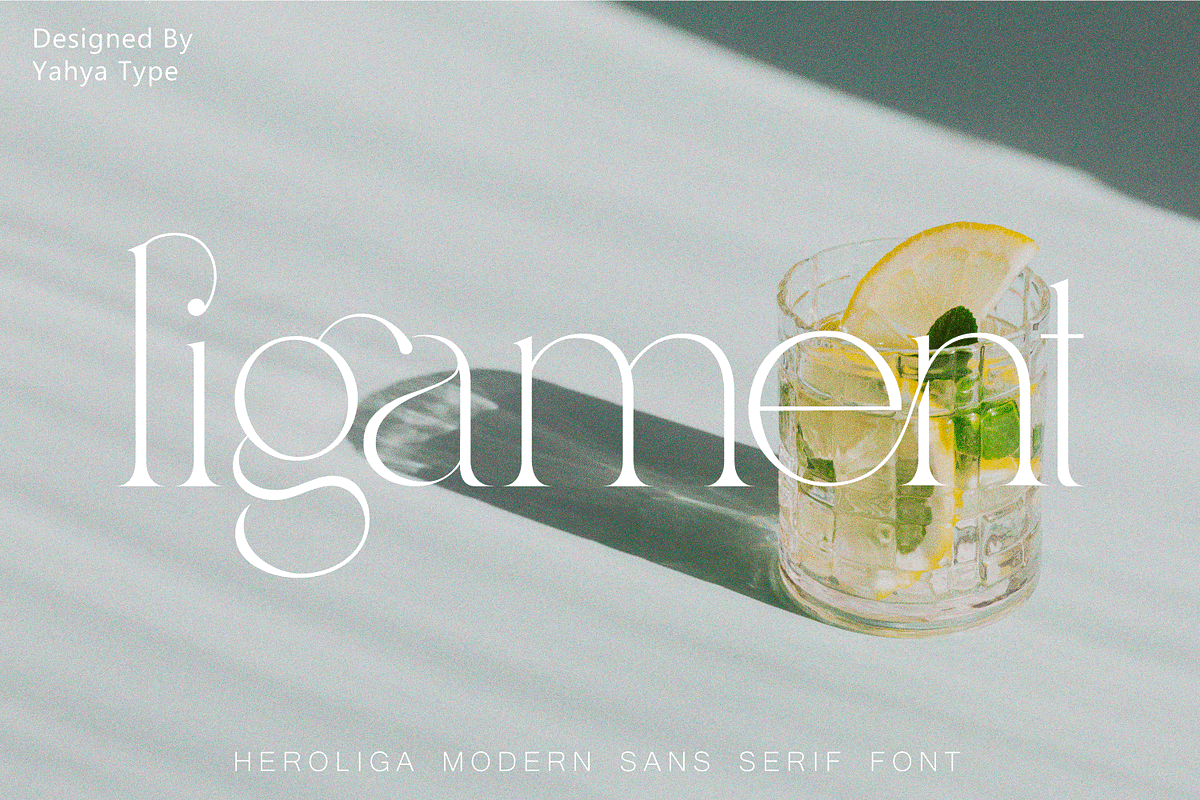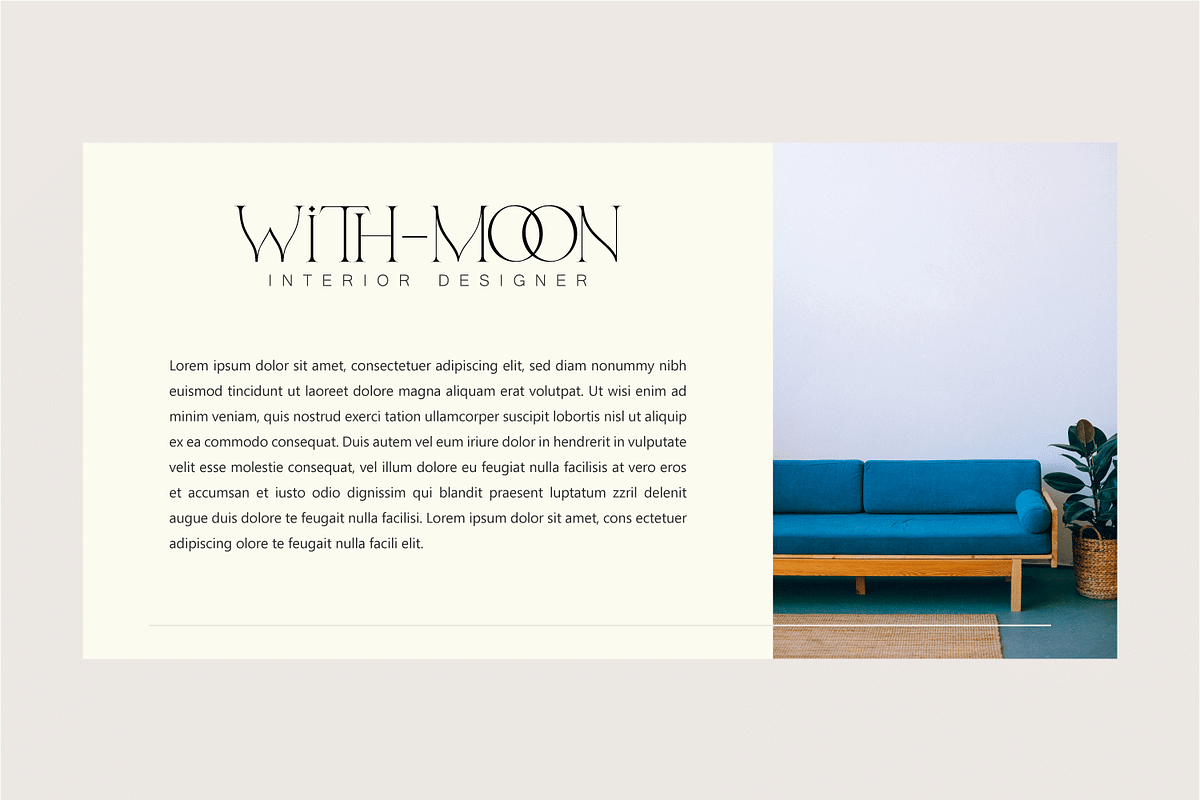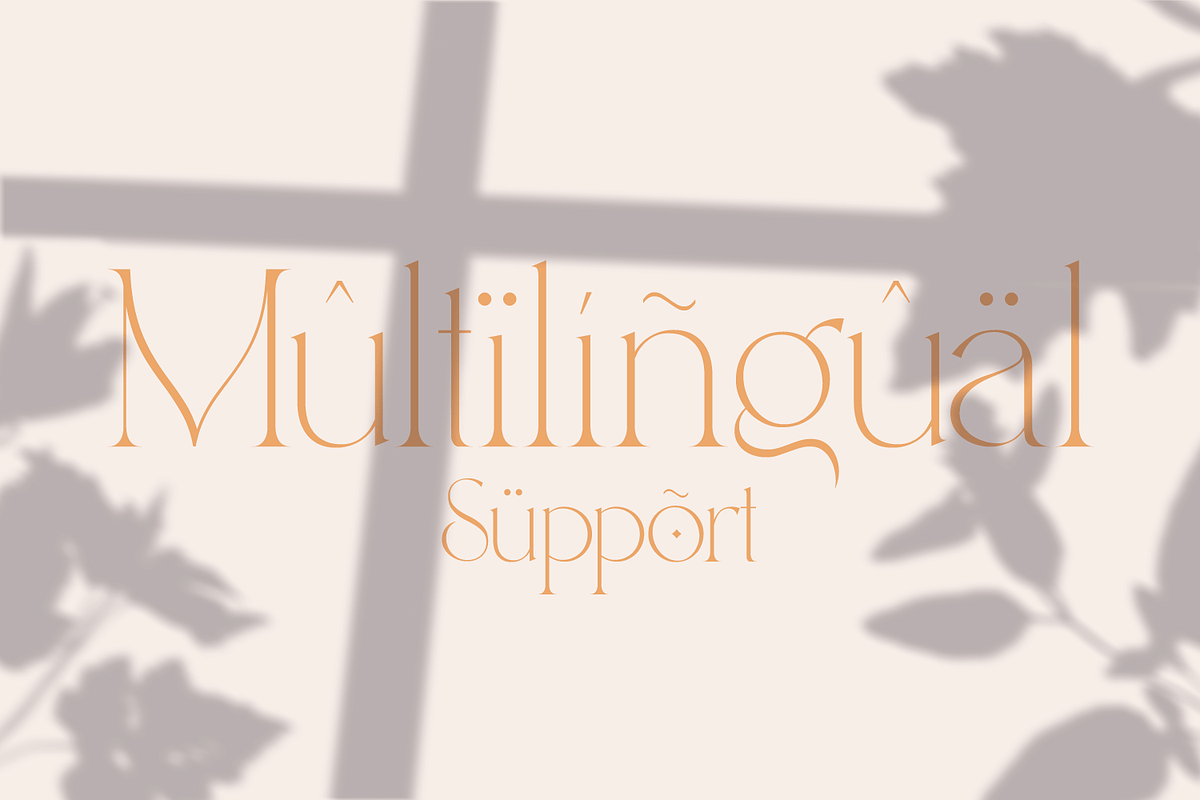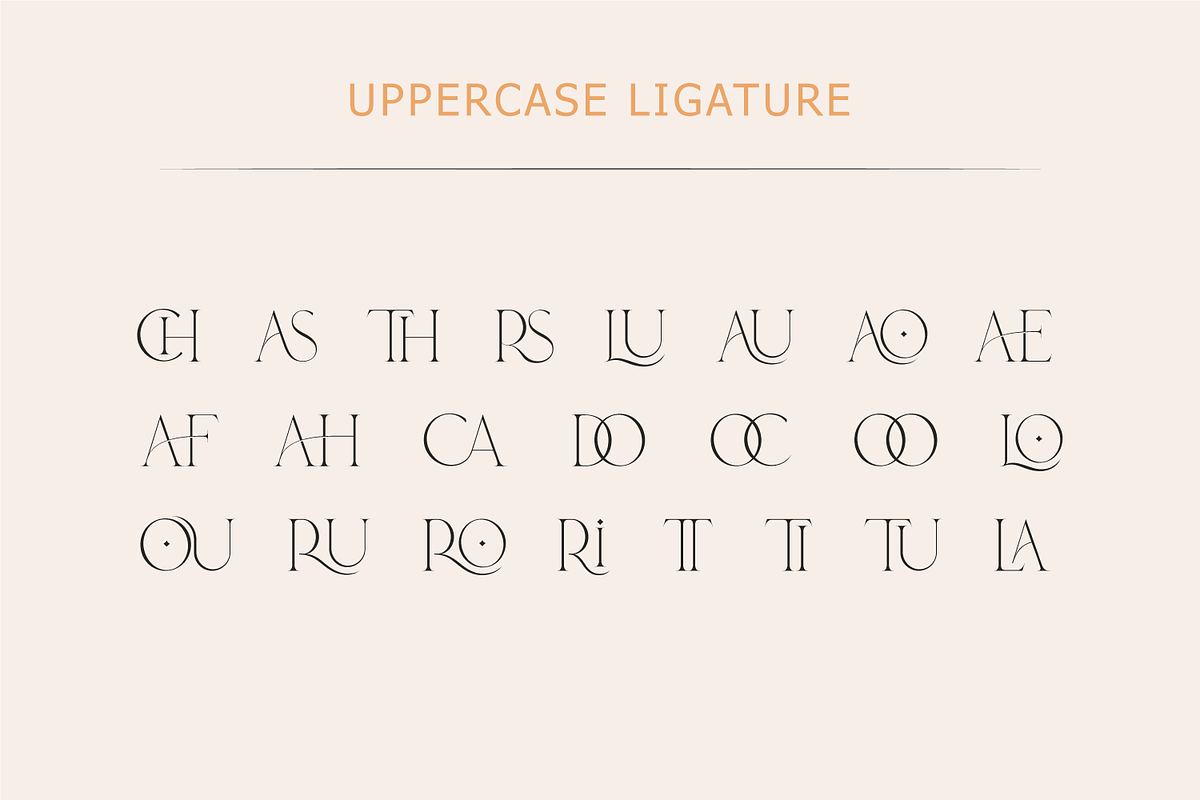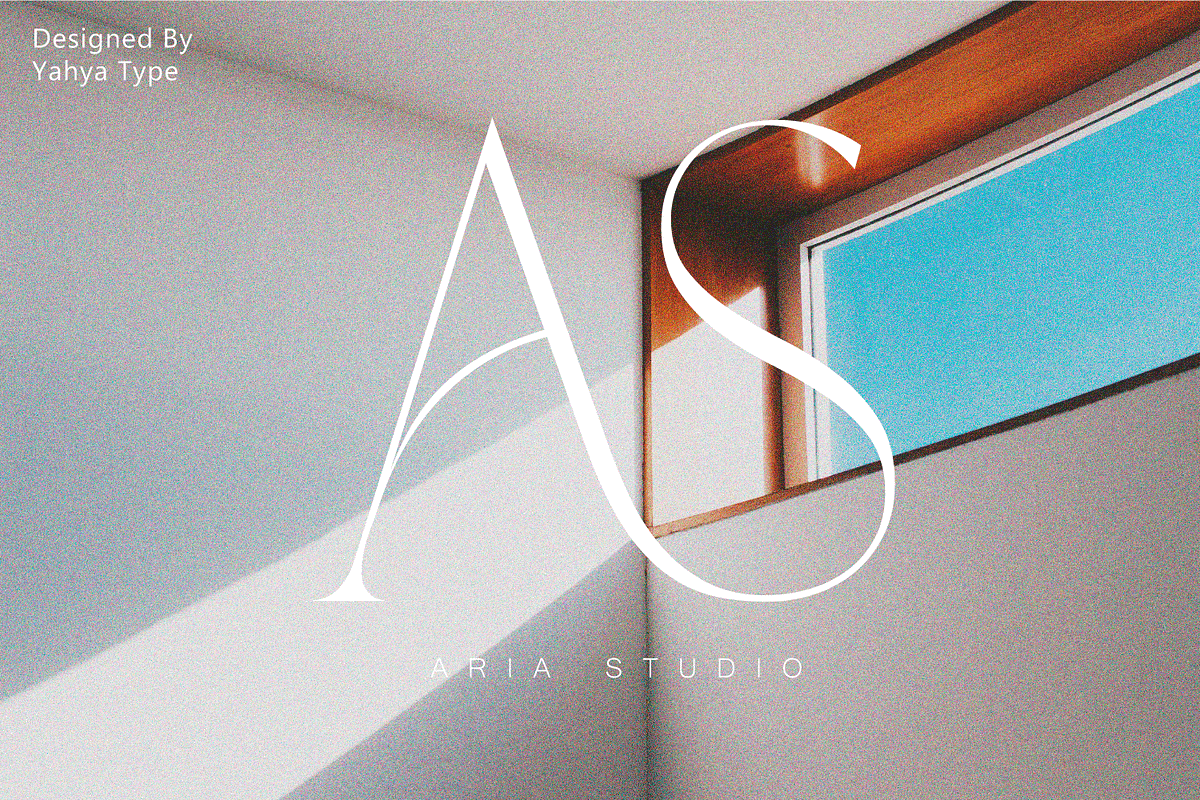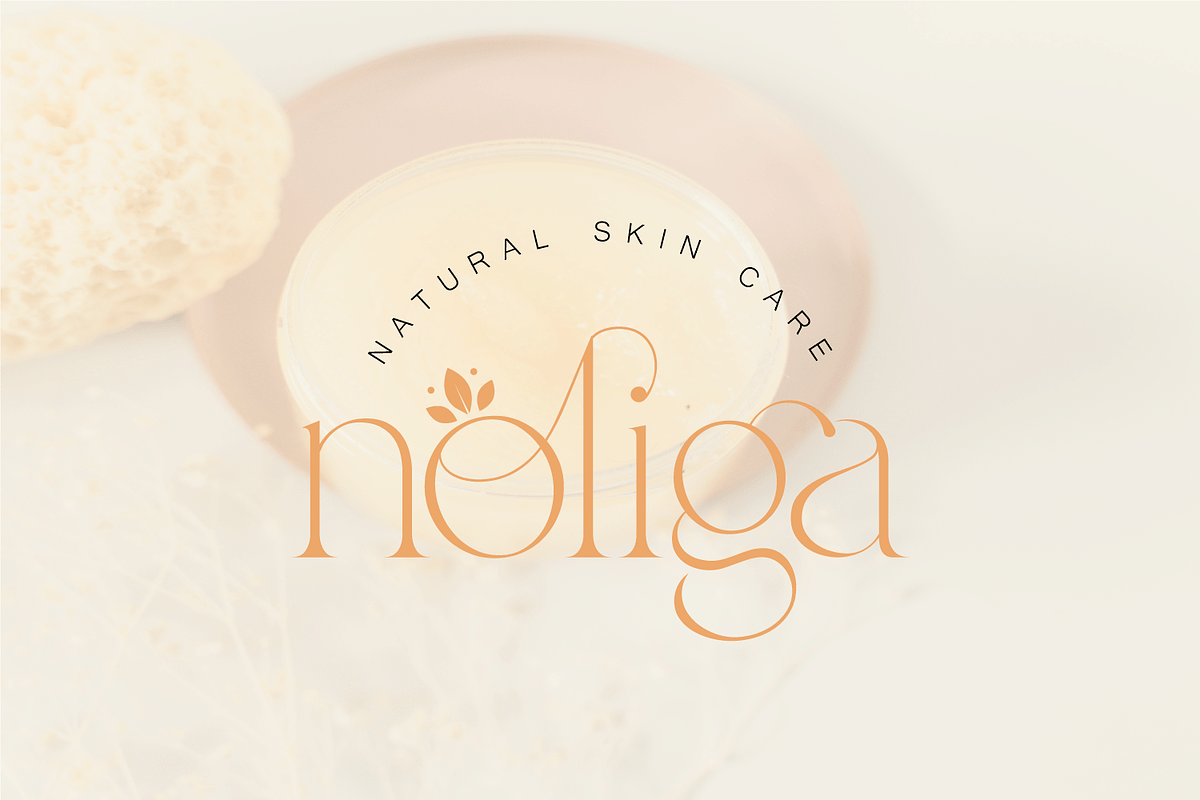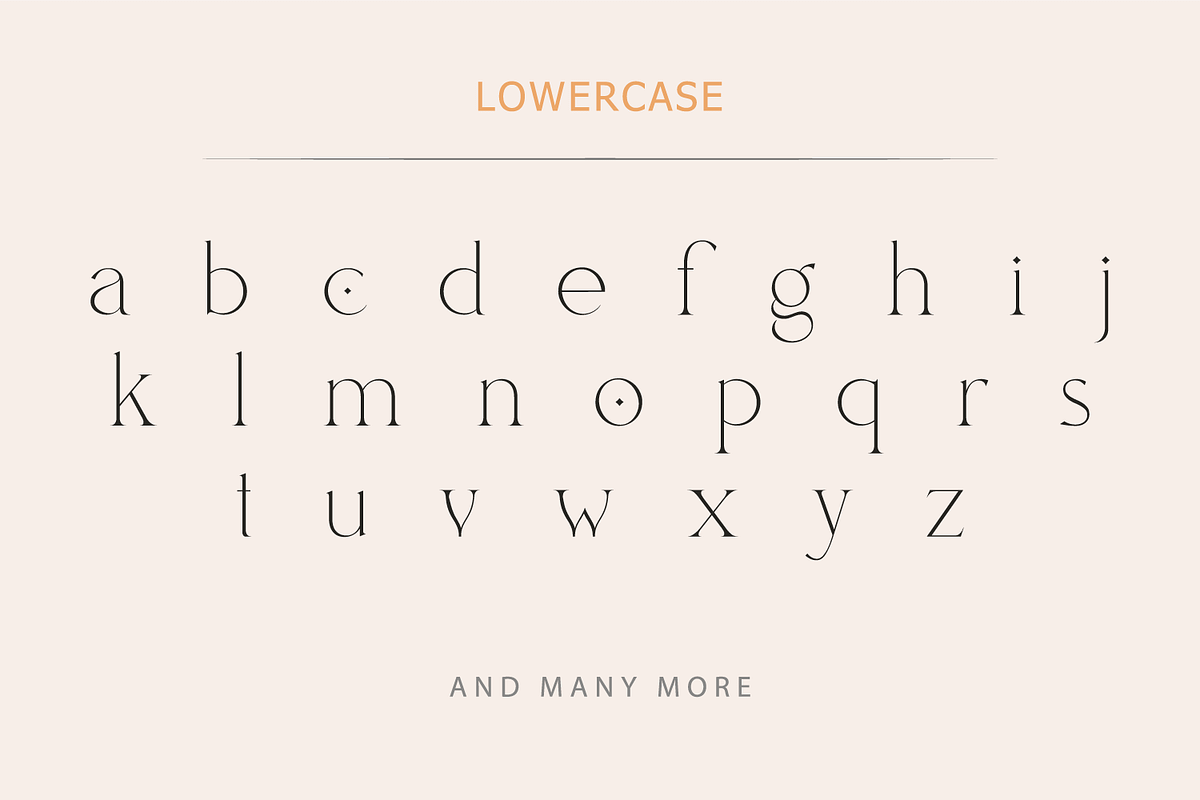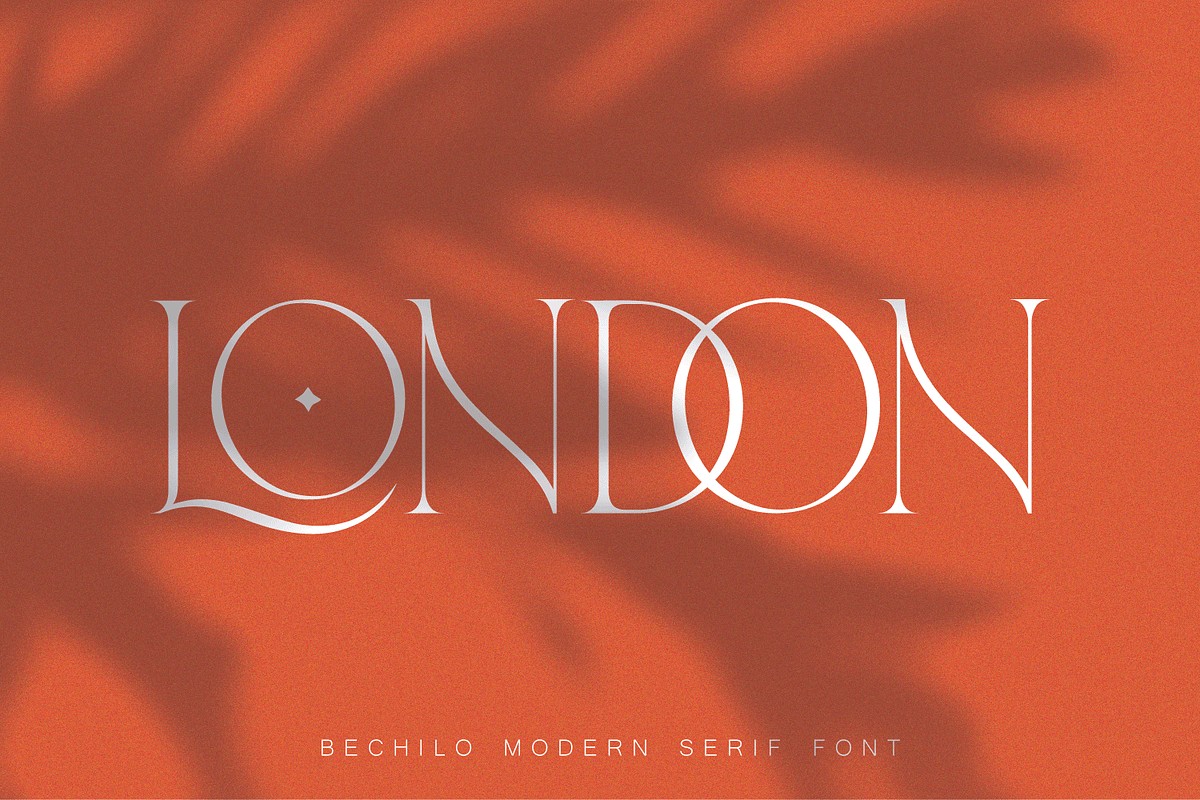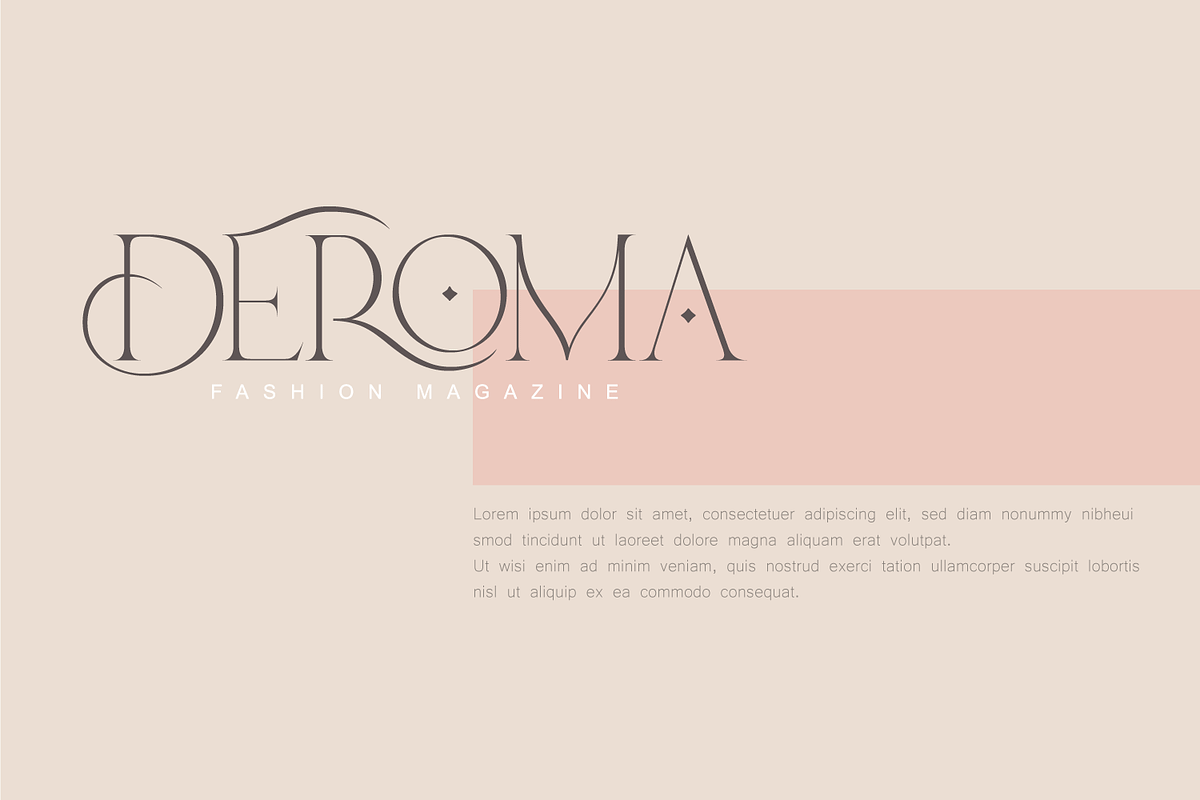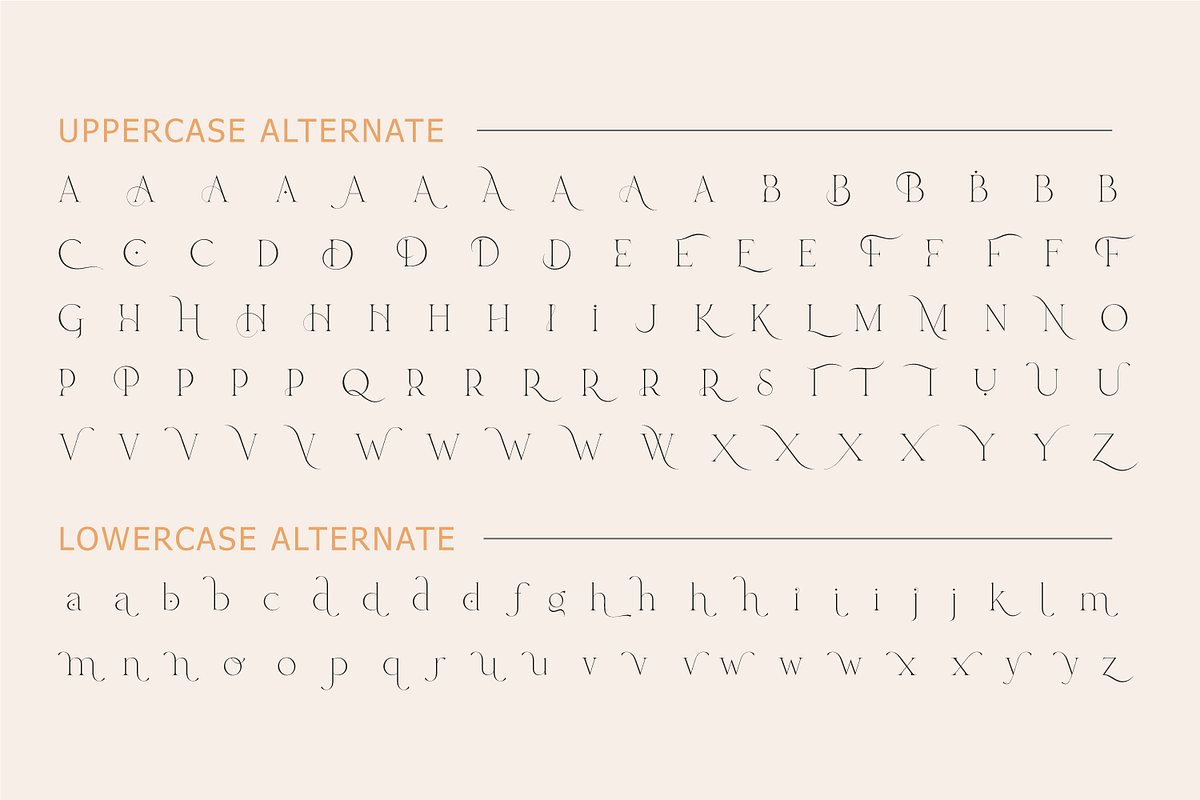
Bechilo – Modern Serif Font
Bechilo – is a beautiful and unique serif font that embodies charm and elegance in every letter. It beautifully combines a vintage look with a modern flair, and it would make a wonderful impact on each of your projects!
Bechilo – this style works well for branding projects, wedding designs, social media posts, advertisements, product packaging, product designs, label, photography, watermark, invitation, or whatever project you’re working on.
- Numbers, punctuation
- Ligature & Huge Stylistic alternate
- Multilingual support.